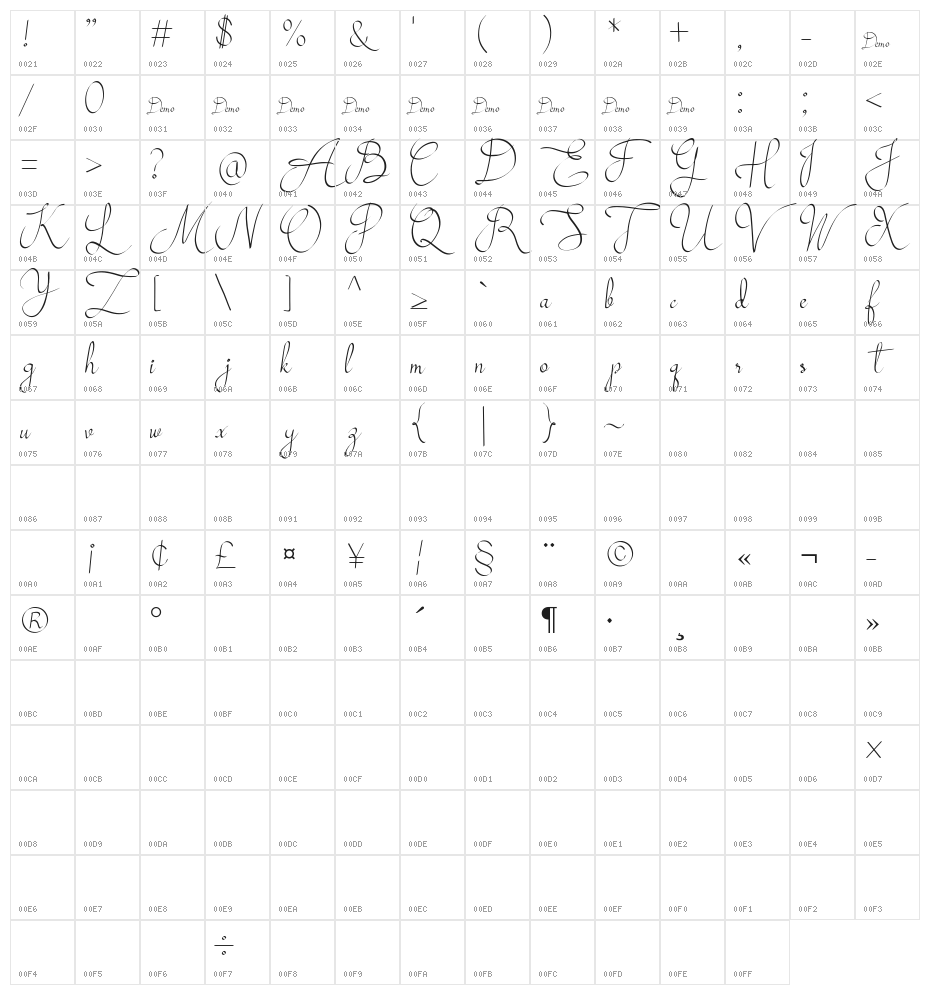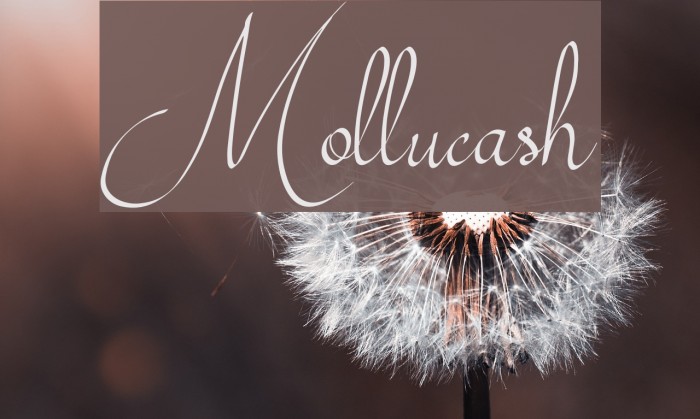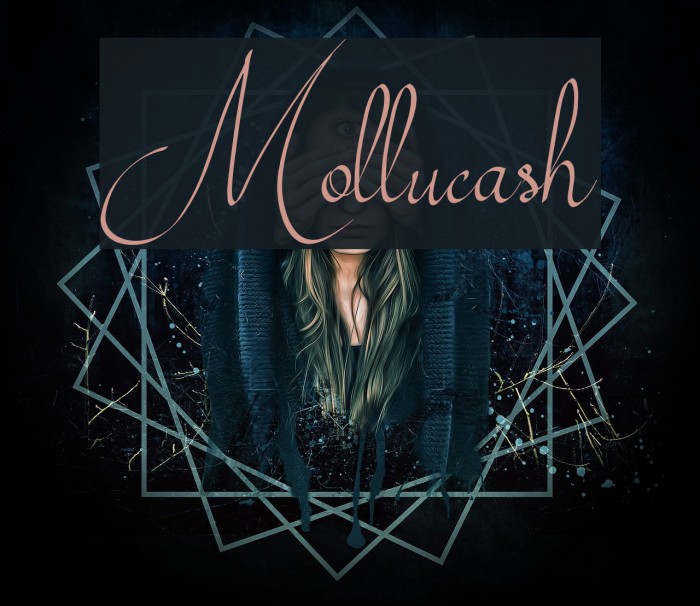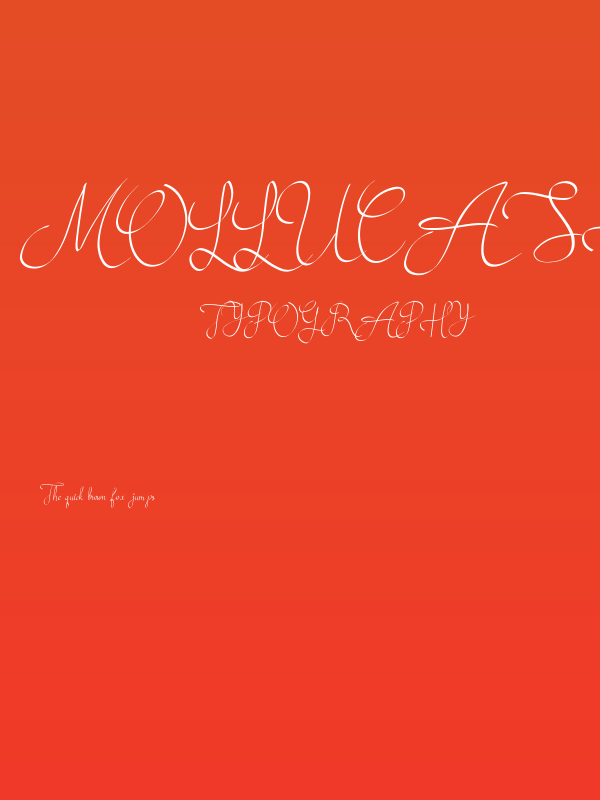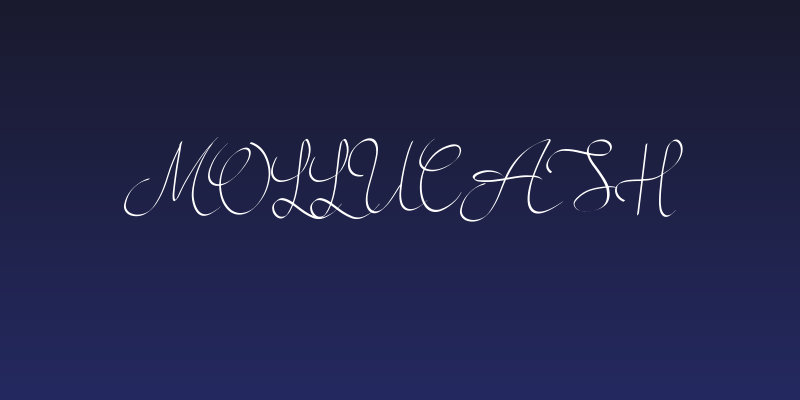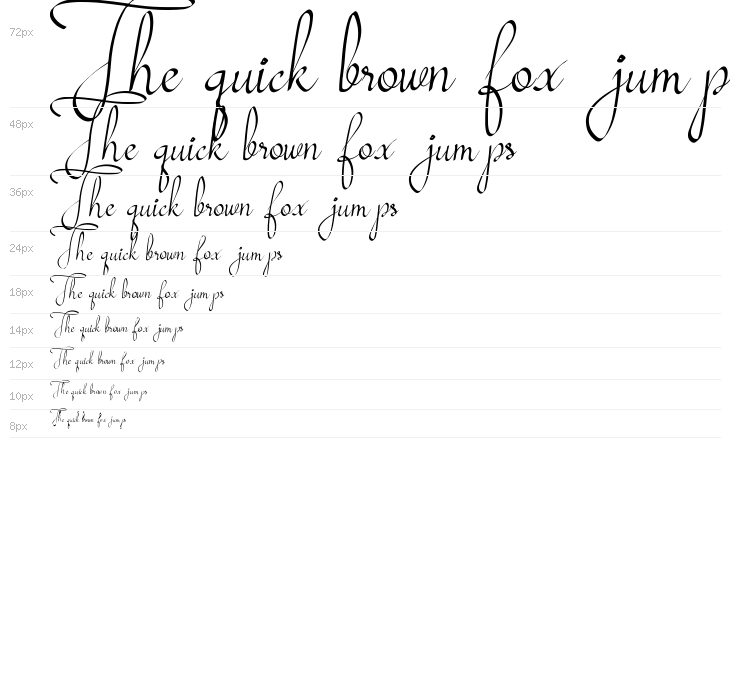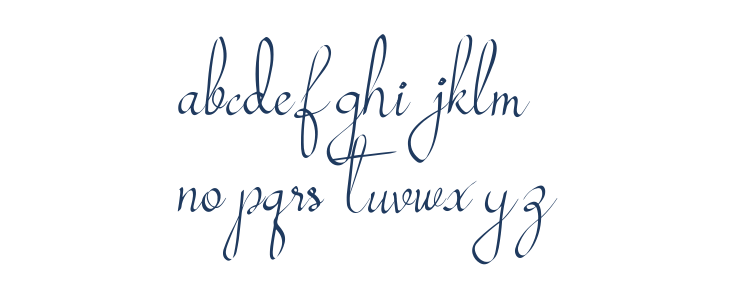
Mollucash Font
Mollucash Description
This elegant script font features a flowing, cursive style with intricate loops and swashes, giving it a sophisticated and artistic appearance. The uppercase letters are particularly ornate, with elaborate flourishes that add a touch of grandeur. The lowercase letters maintain a consistent fluidity, making the font suitable for elegant and formal designs. The numerals and special characters are crafted with the same attention to detail, ensuring a cohesive look across all elements. This font exudes a sense of grace and refinement, making it ideal for projects that require a touch of elegance.
Overall StyleElegant
Use CaseLogos, Invitations, Decorative text
Proposed ProjectsWedding invitations, luxury branding, elegant stationery, and formal event programs.